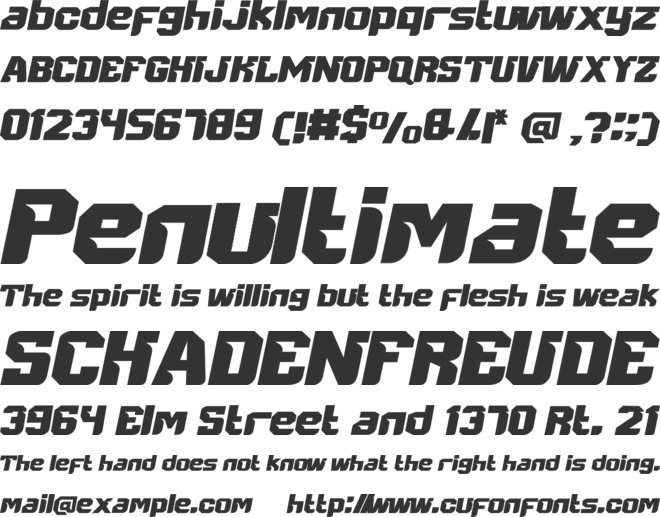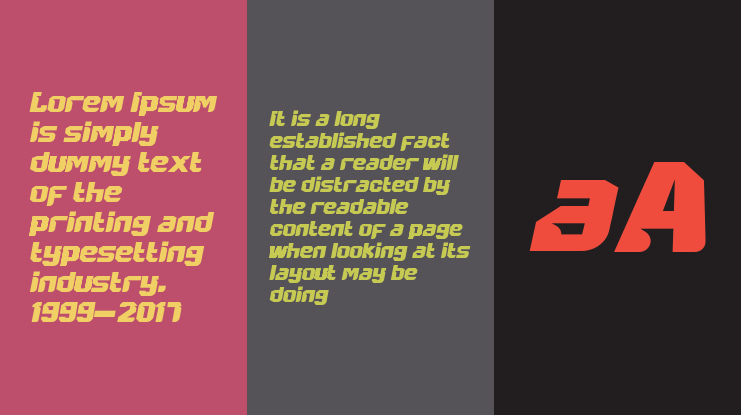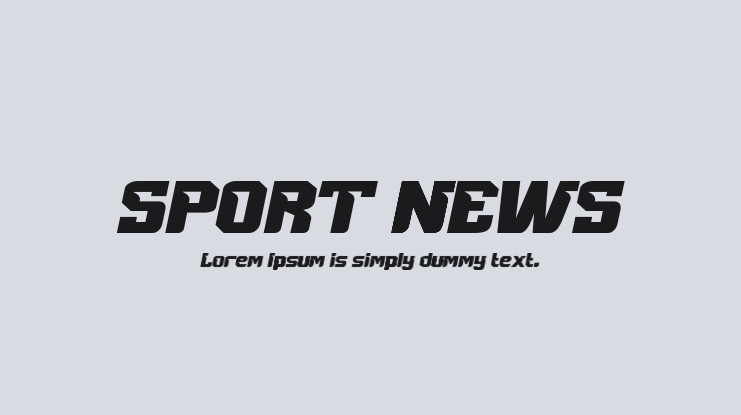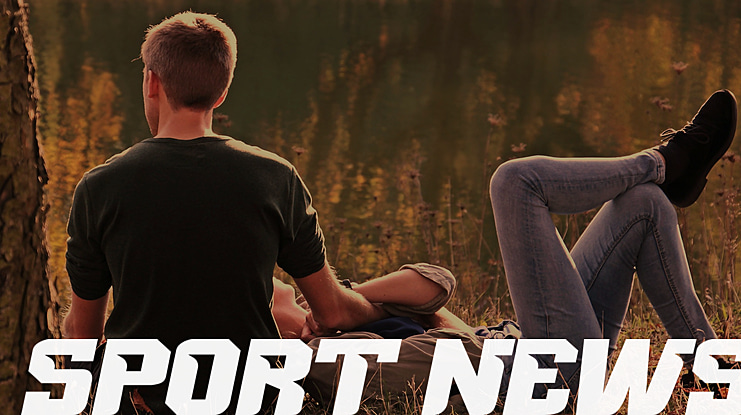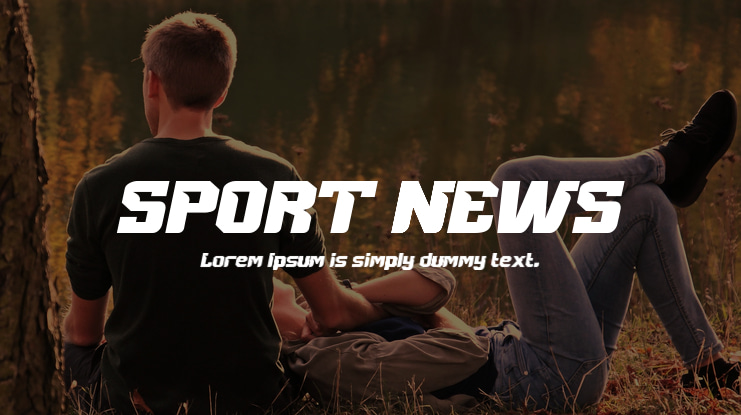
SPORT NEWS Font
Sport News Display Font
It’s a cool, thick lettered, and bold display font. This font is ideal for writing web designs, business cards, or pretty much anything else that requires a unique touch.
Wahyu Aji Prasetyo (WAP Studio)